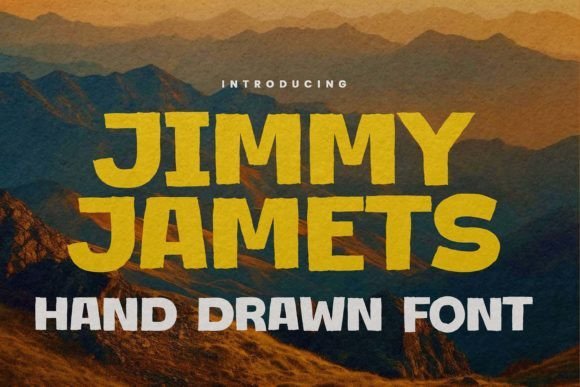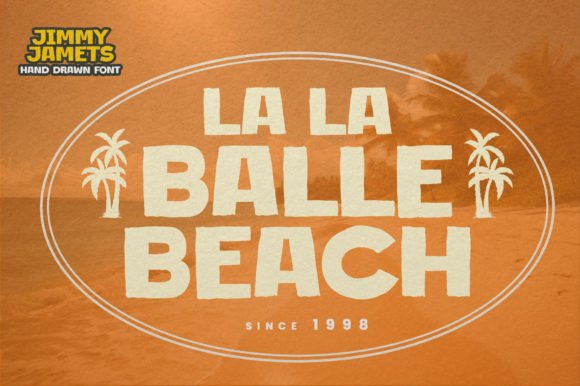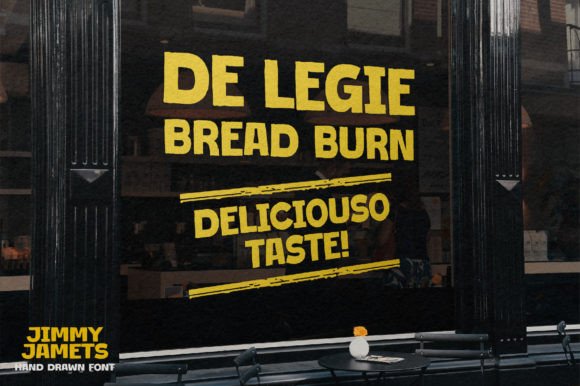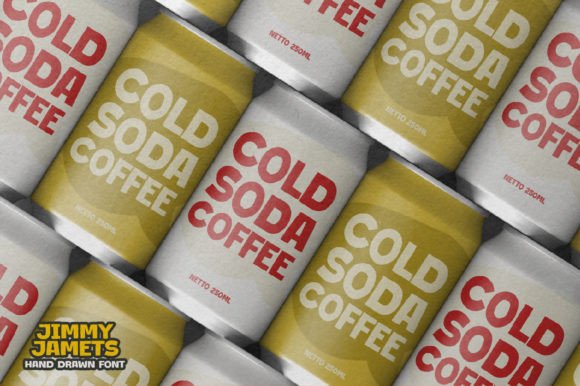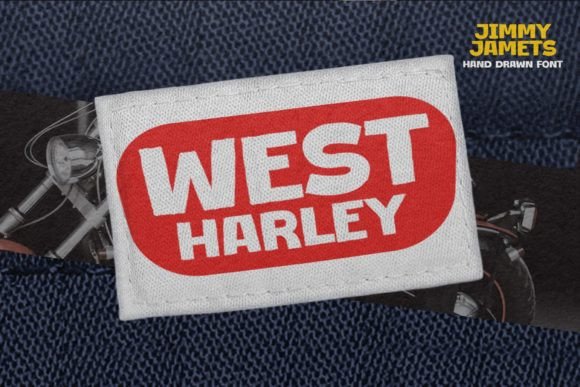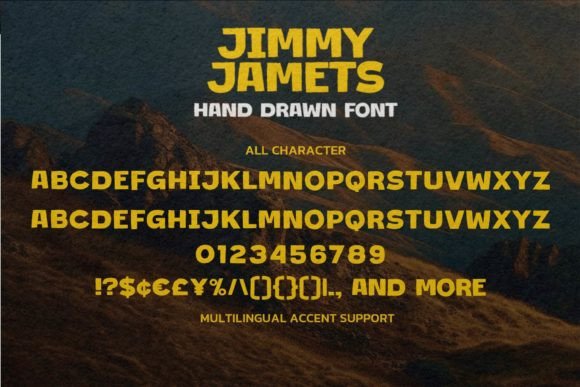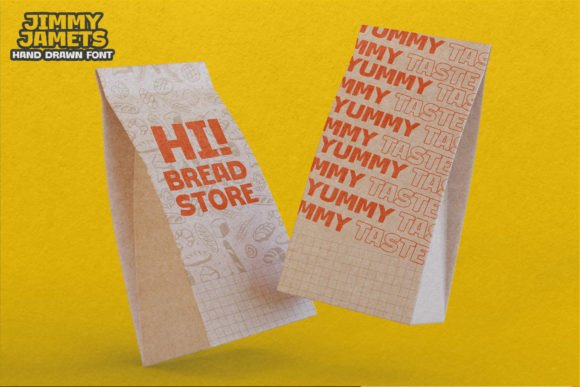
Unlock Your Creativity with Jimmy Jamets Font
Have you ever stared at a blank canvas, or a blank document, and felt like your imagination is stuck? You know, that moment when the creative juices just aren’t flowing, and you’re not sure where to start? That’s when the right font can make all the difference. A font that speaks to you, that resonates with your vision, and helps you bring your ideas to life.
Enter Jimmy Jamets Font, a bold and unique display font designed to take your creative projects to the next level. This font is not just another addition to your typography arsenal, but a true partner in bringing your ideas to fruition. With Jimmy Jamets Font, you’ll be able to add a touch of personality, of style, and of sophistication to your designs, making them truly unforgettable.
Jimmy Jamets Font Key Features
- Font Family: Jimmy Jamets is a unique, custom font designed for creative purposes.
- Unique Characteristics: Jimmy Jamets features a bold, playful, and hand-drawn style with intricate details, making it ideal for creative projects that require a distinctive look.
- Font Style: The font is available in both regular and bold styles, providing versatility for designers to choose the perfect look for their project.
Jimmy Jamets Font Review
Overall, I’d say Jimmy Jamets Font is a decent choice for a casual project, but it might not be the best fit for every situation. Let’s break it down.
- It has a playful, quirky vibe that can add a lot of personality to a design.
- The font is highly legible, even at smaller sizes.
- It comes in a variety of weights and styles, giving you a lot of flexibility in terms of how you use it.
- The font may be too whimsical for formal or professional projects.
- Some of the styles can be a bit inconsistent, which might make it harder to use across different platforms.
- It’s not ideal for small text or headings, as it can get lost in the background.
Overall, I think Jimmy Jamets Font is a solid choice for a fun, casual project, but it’s not the best fit for every situation. With some careful consideration and planning, it can add a lot of personality to your design.
Jimmy Jamets Font is ideal for creating eye-catching headlines, titles, and banners. Use it to add a touch of elegance and sophistication to your designs. Some common use cases include:
– Branding and marketing materials
– Fashion and beauty designs
– Artistic and creative projects